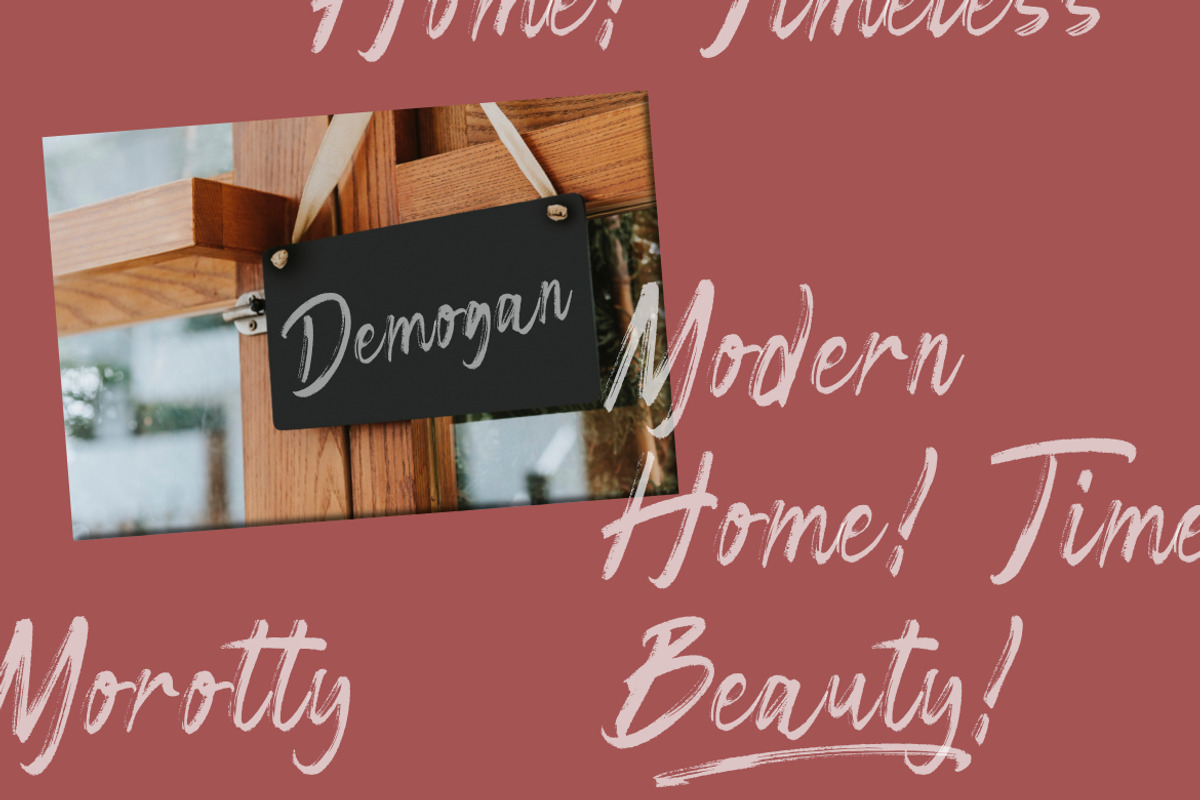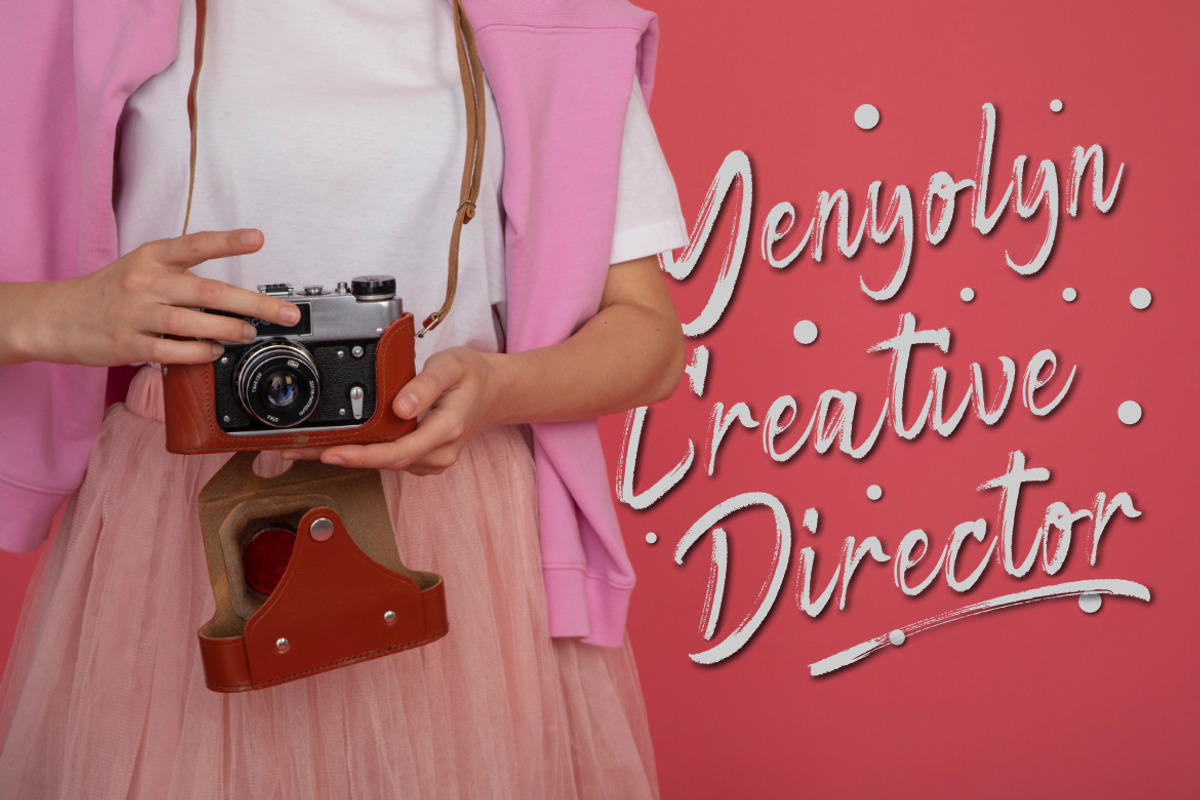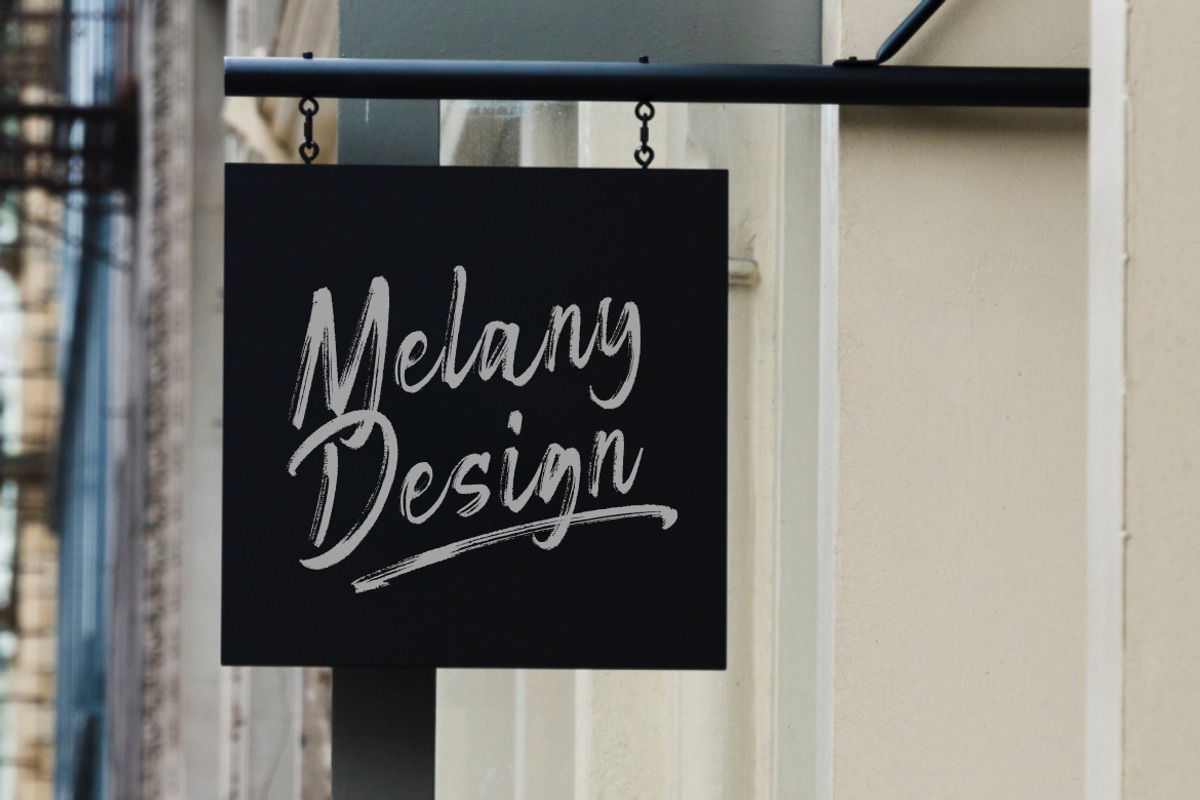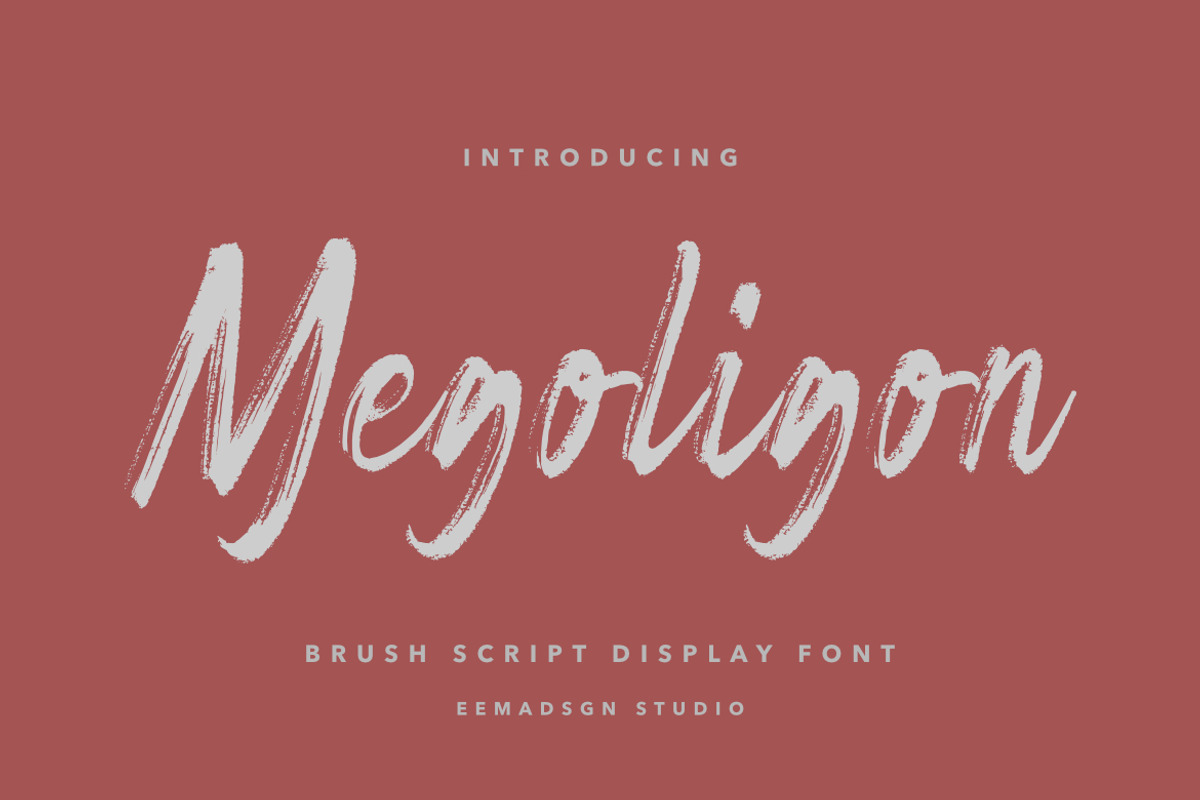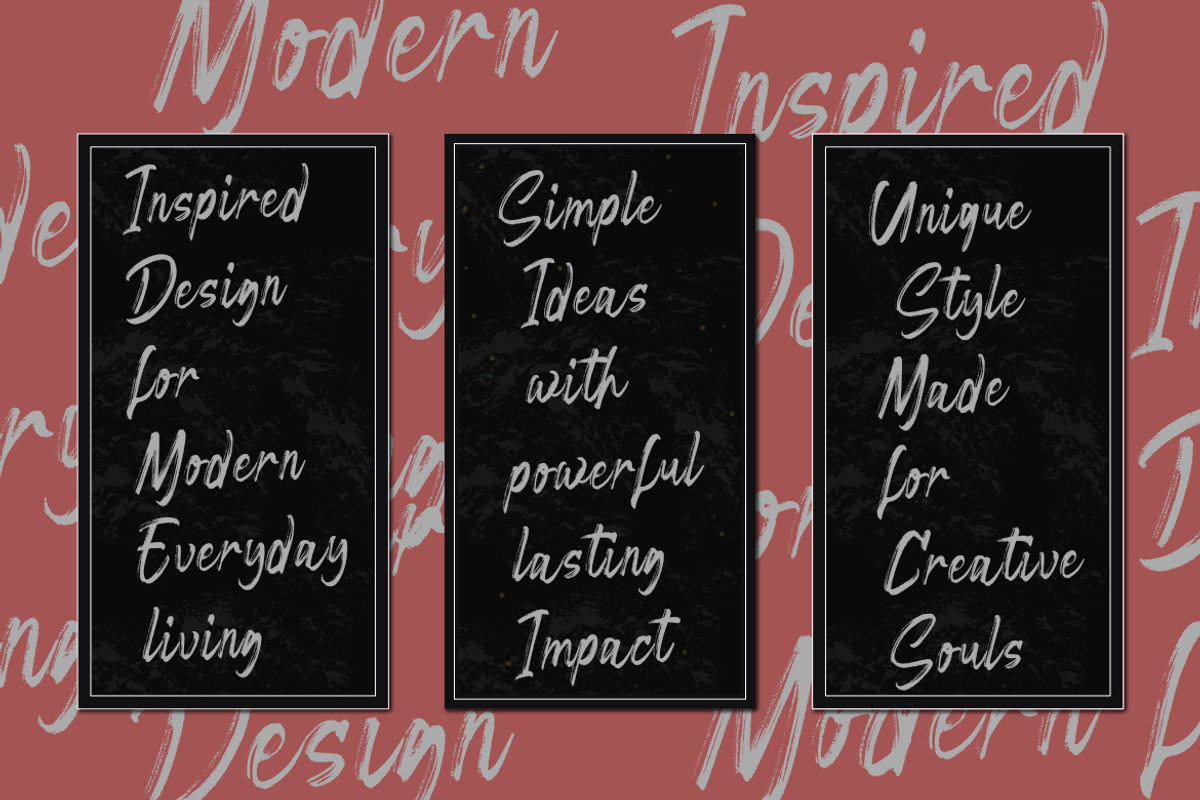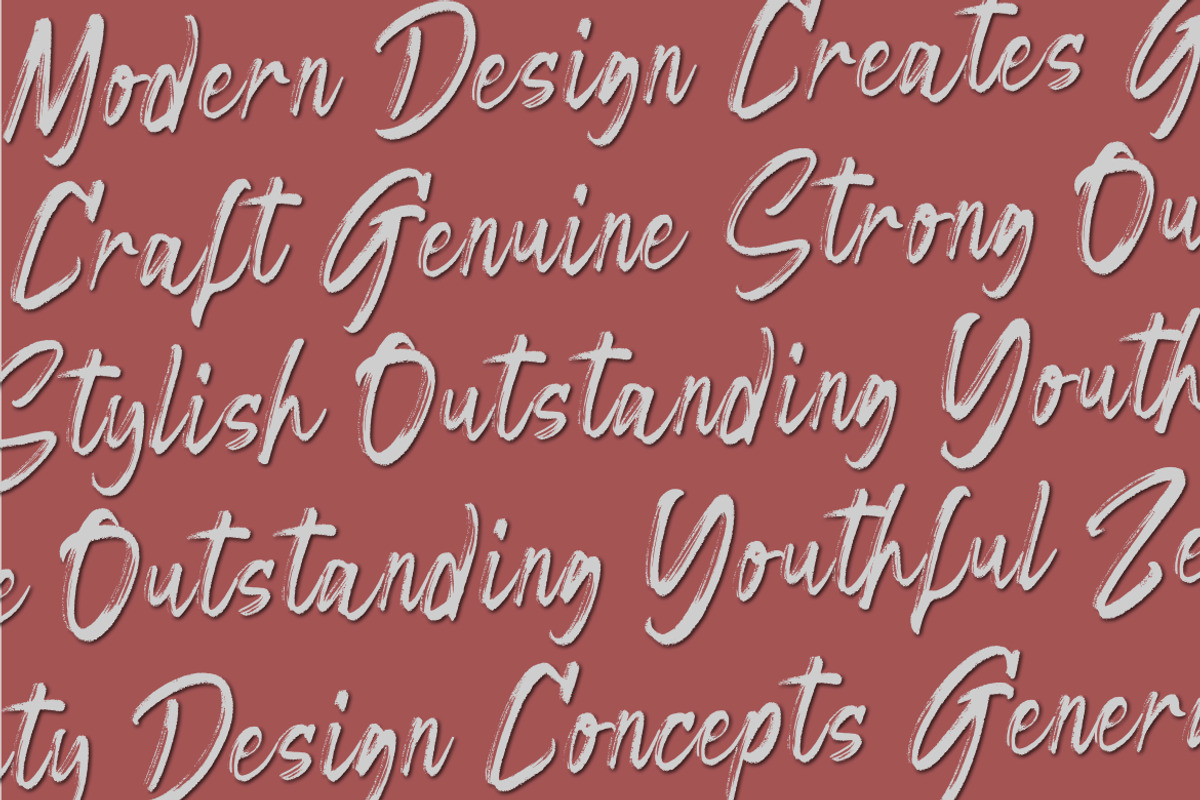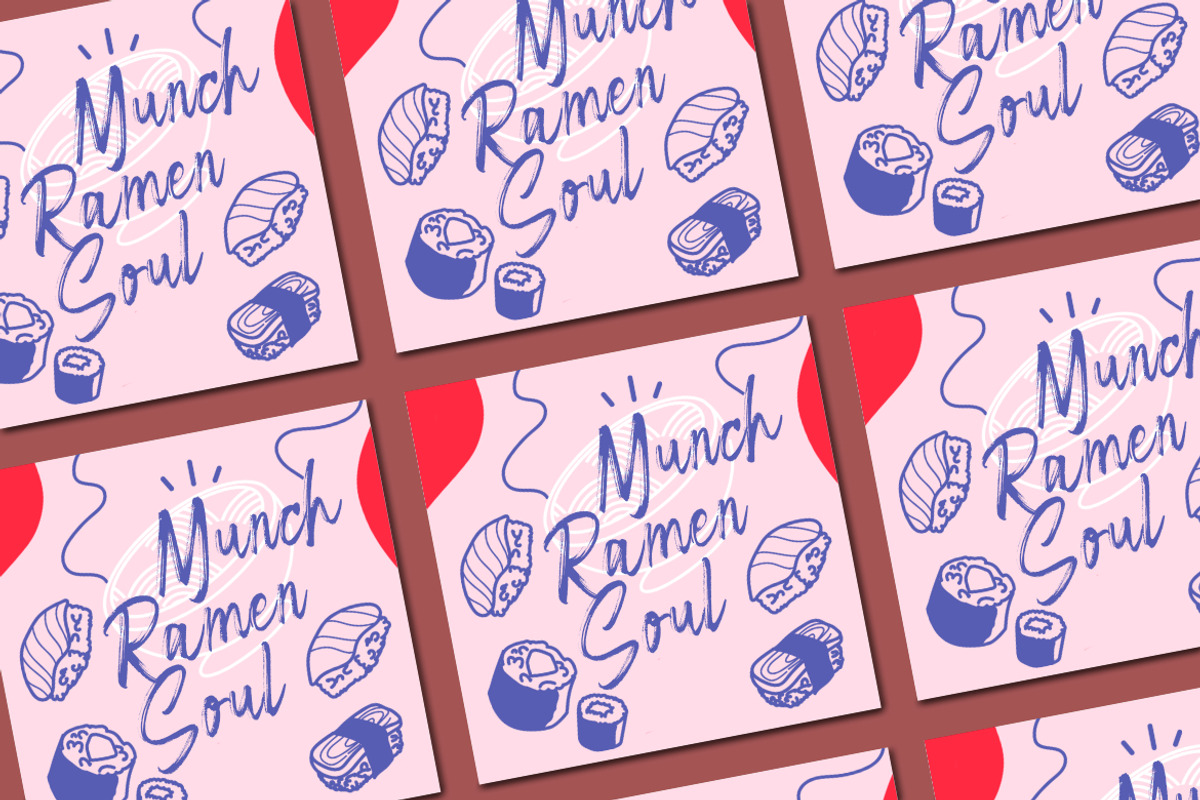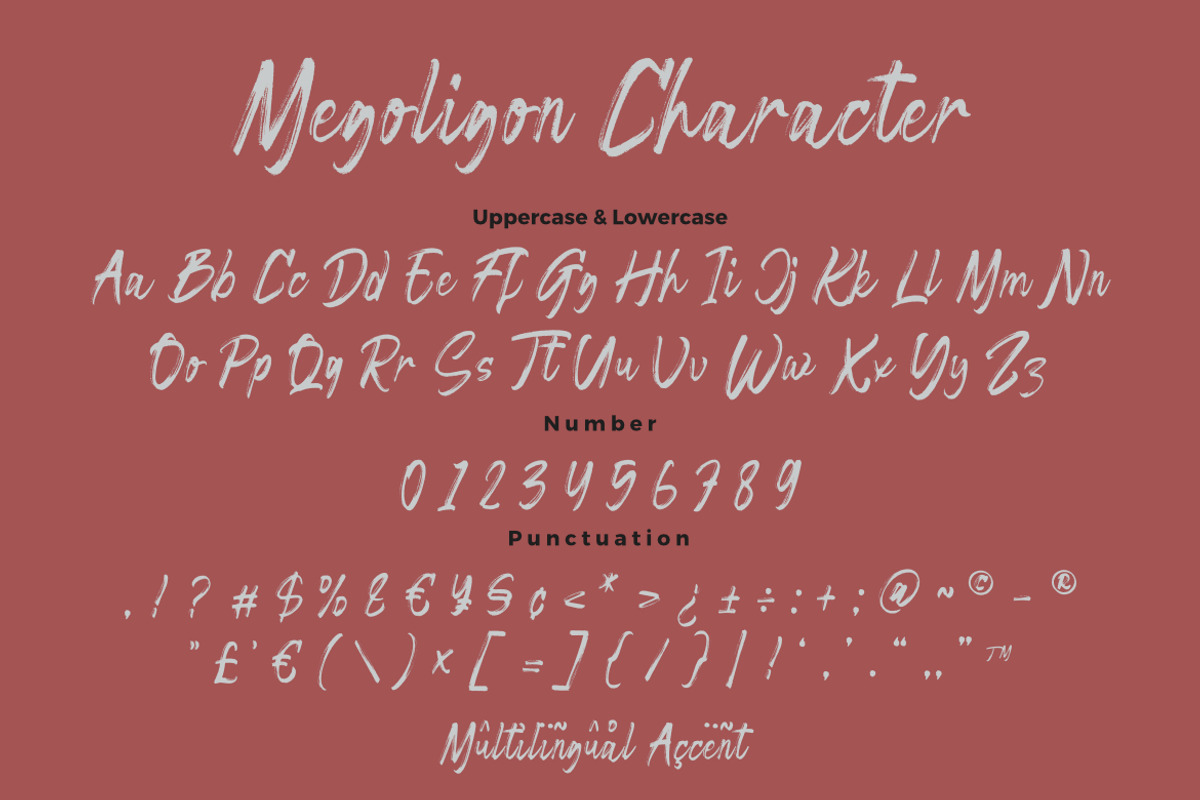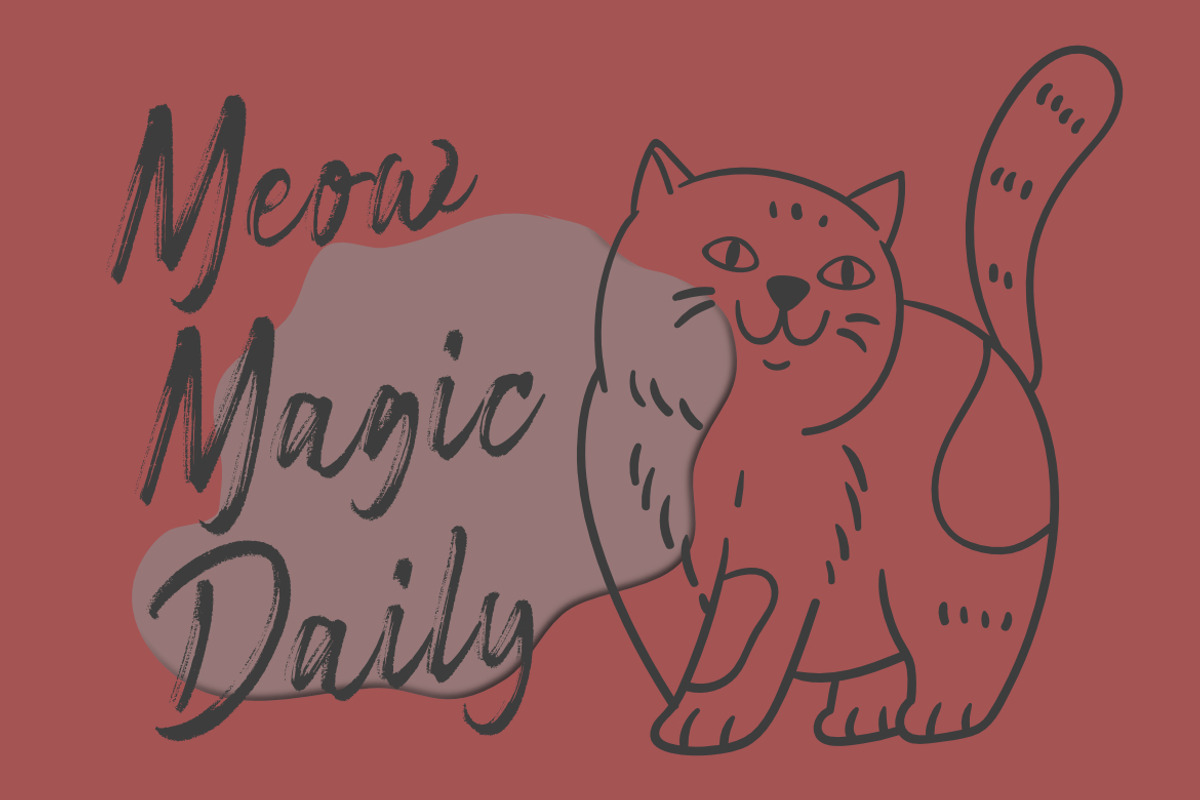
Megoligon – Brush Script Font
Megoligon – Brush Script Display Font
Megoligon Brush Script Display Font is a bold and expressive handwritten typeface inspired by natural brush strokes, fluid motion, and artistic lettering styles. Featuring textured edges, dynamic curves, and slightly rough finishes, this font captures the authentic feel of hand-painted typography with a modern and stylish twist.
Designed to evoke creativity and confidence, Megoligon delivers a strong visual impact with its sweeping strokes and organic rhythm. Each character is crafted to feel alive and spontaneous, making it perfect for designs that require a personal, artistic, and energetic touch. Its brush-style texture adds depth and character, giving your text a raw yet refined appearance.
Perfect for both digital and print use, Megoligon stands out in projects that demand bold expression, handcrafted aesthetics, and eye-catching typography.
- Authentic Brush Script Style
- Textured & Rough Stroke Details
With Megoligon Brush Script Display Font, your designs gain a powerful handcrafted look, expressive movement, and a stylish brush-lettering personality — perfect for projects that aim to be bold, artistic, and full of character.